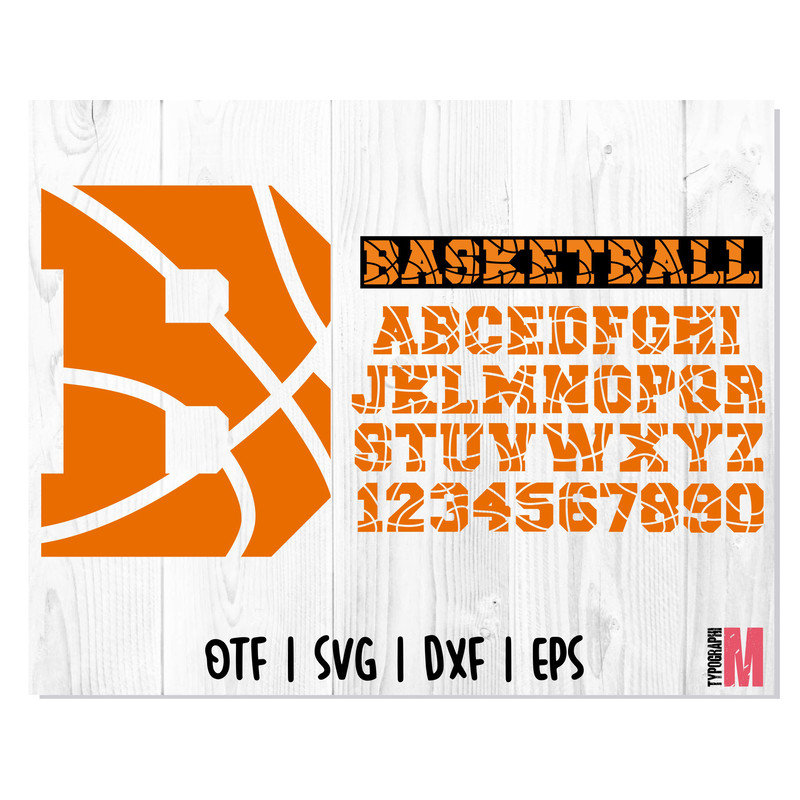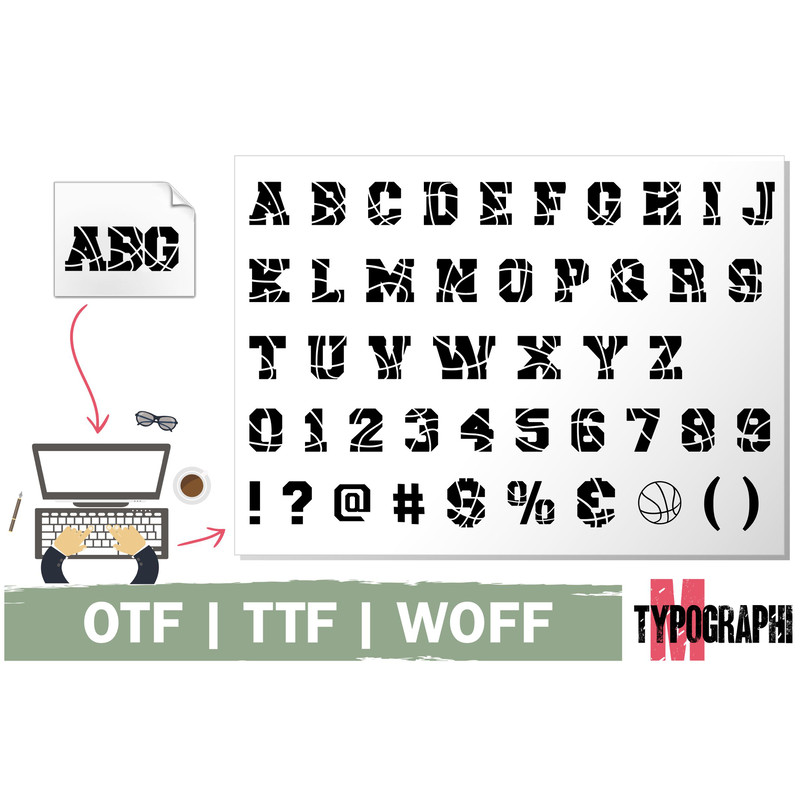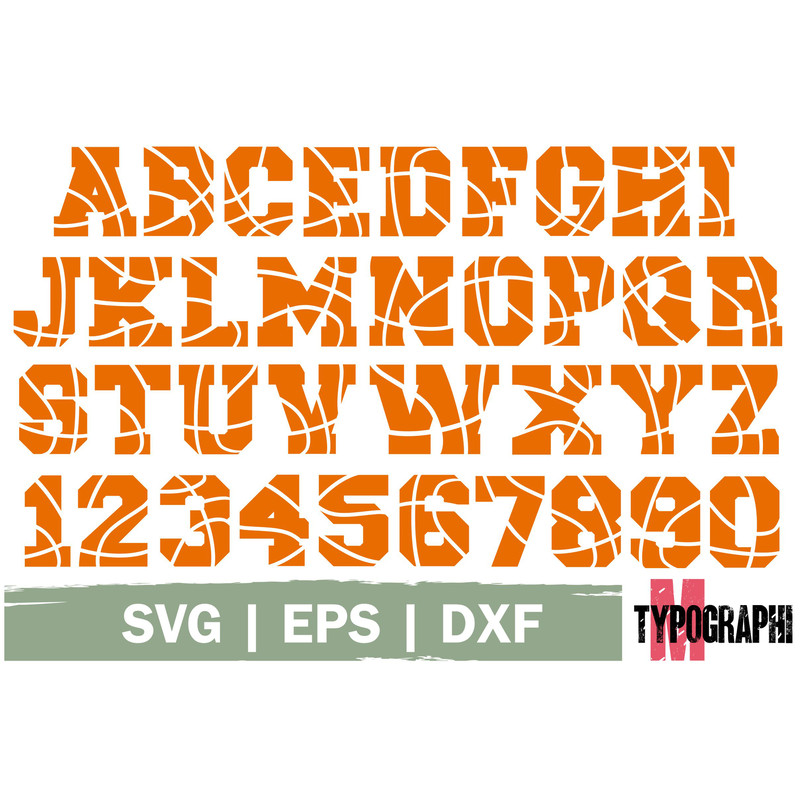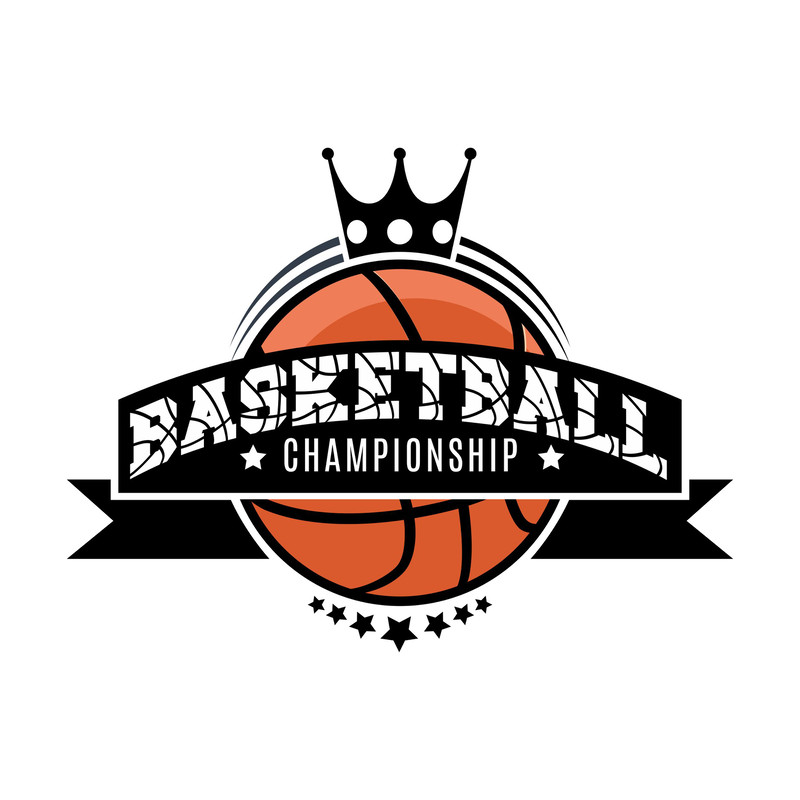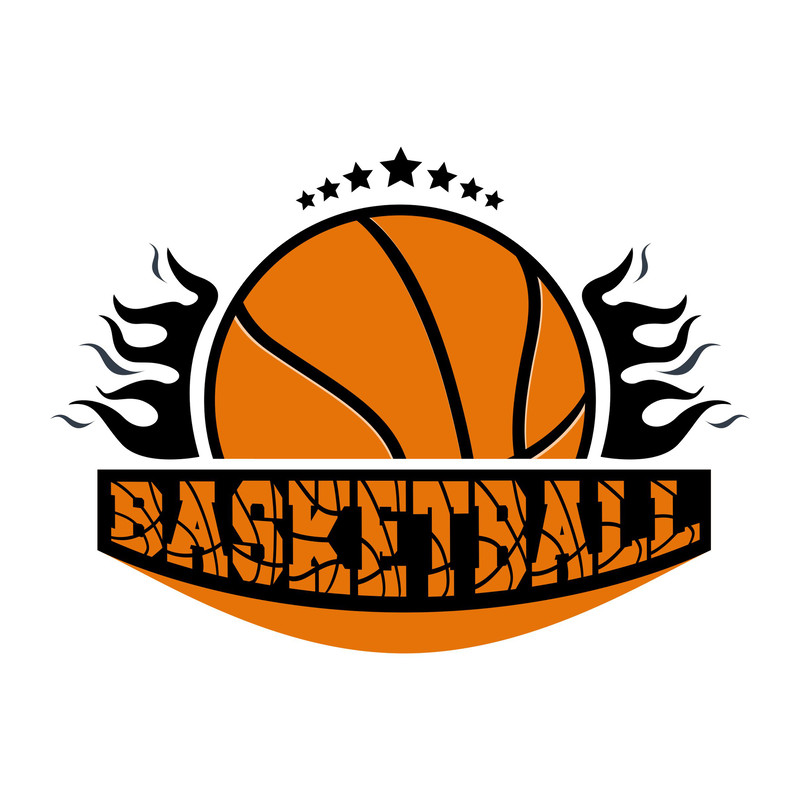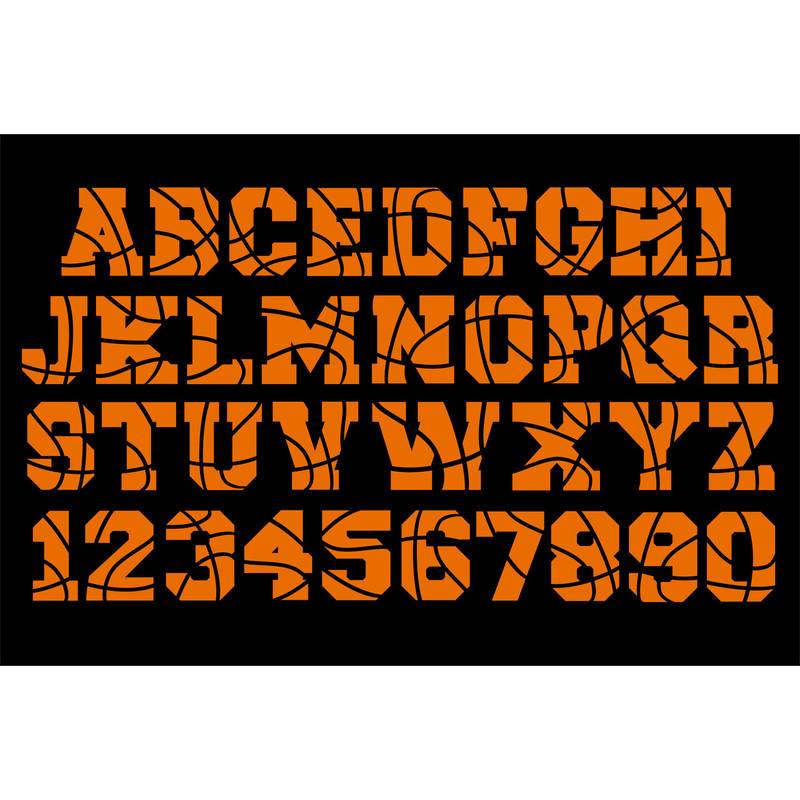
Basketball is a dynamic and sporty decorative font, decorated with ornaments on a basketball ball in each letter. It will look especially good in any sports, team or game project and sports design for t shirt!